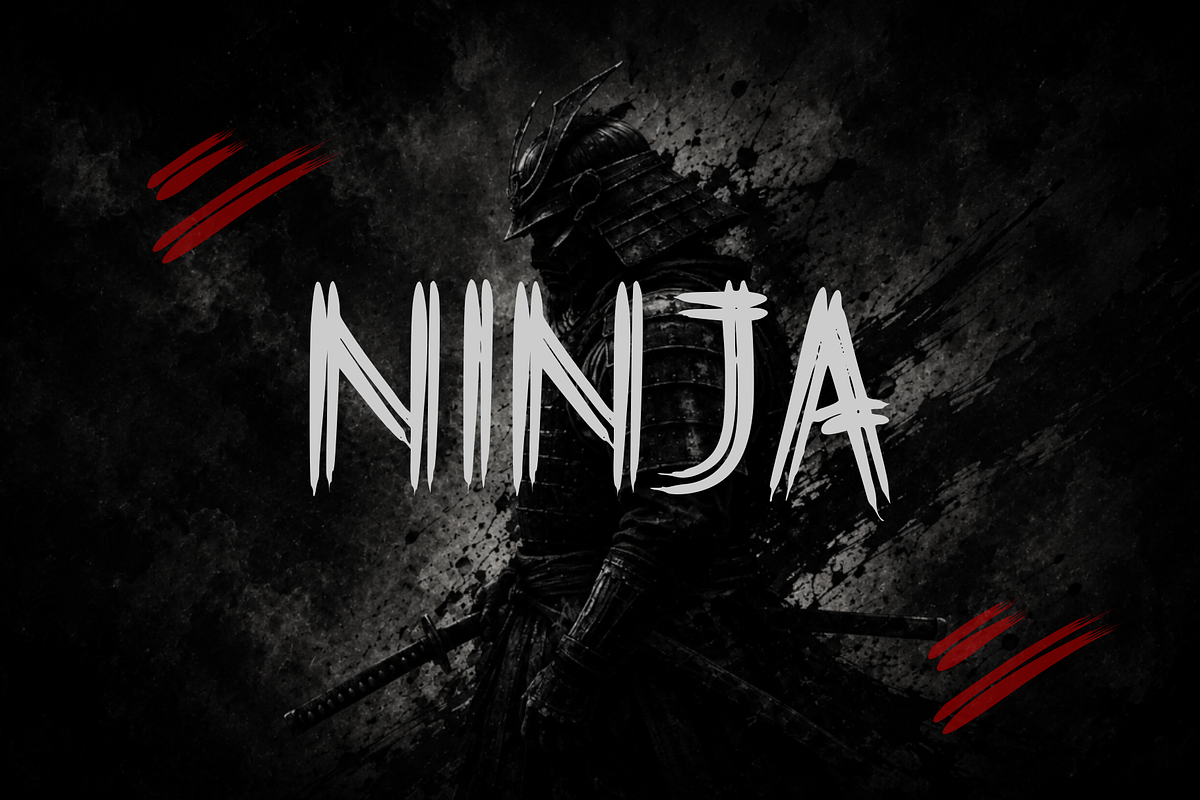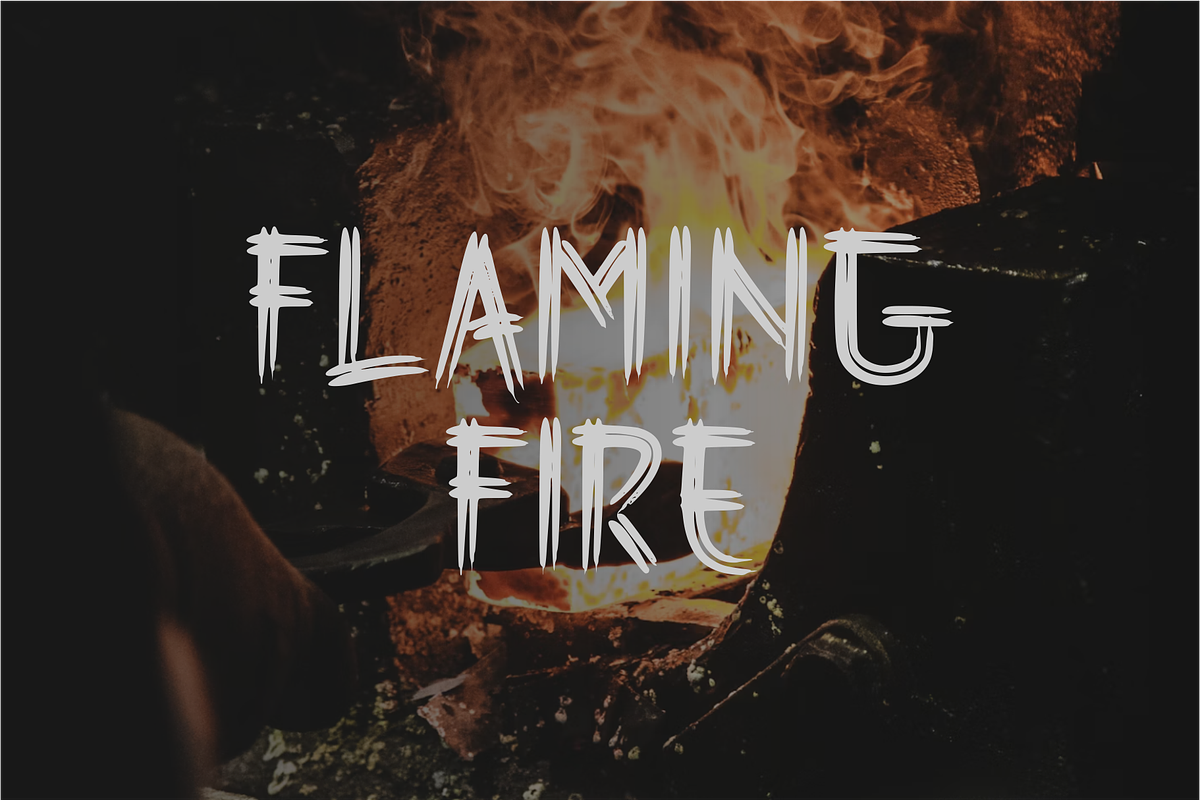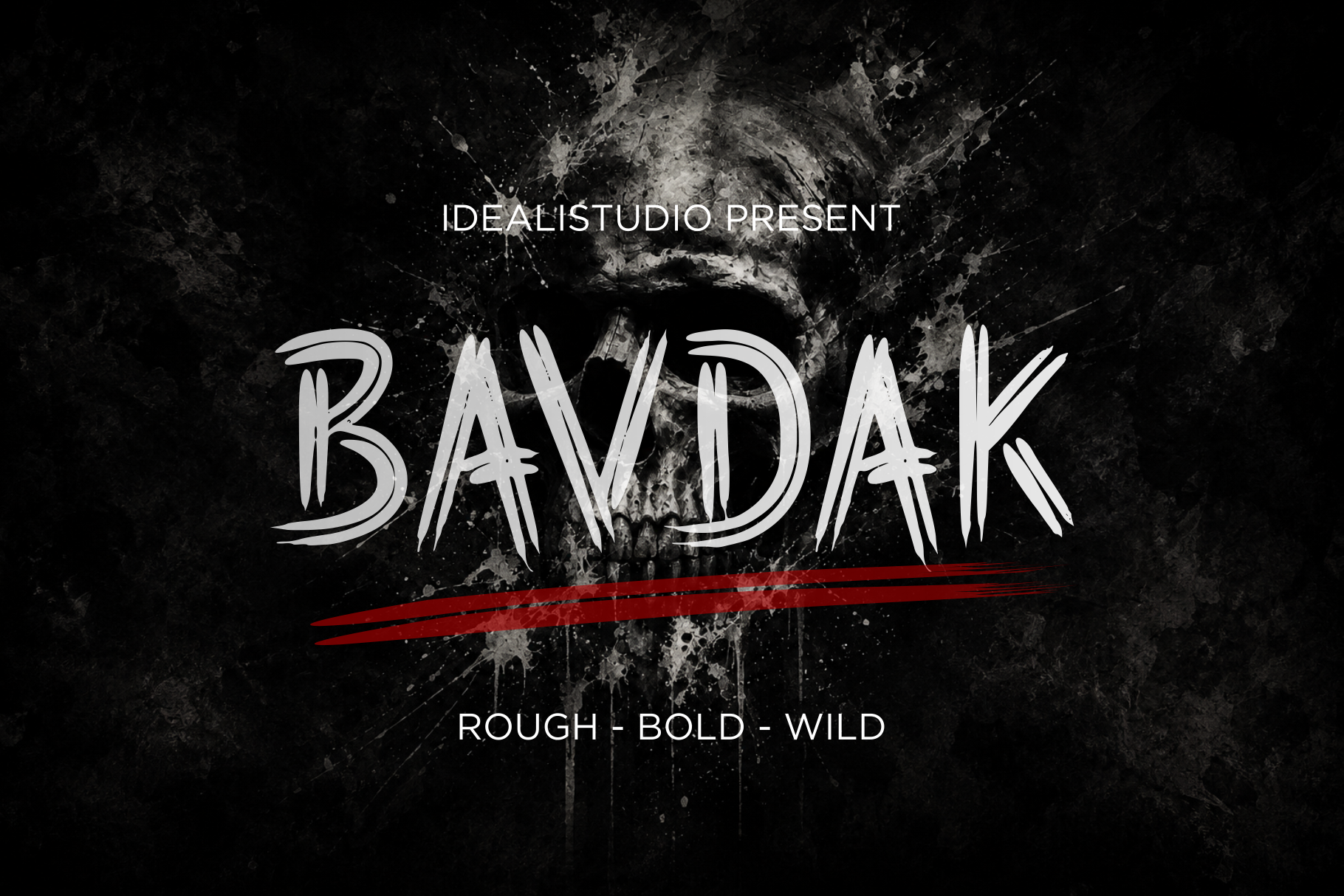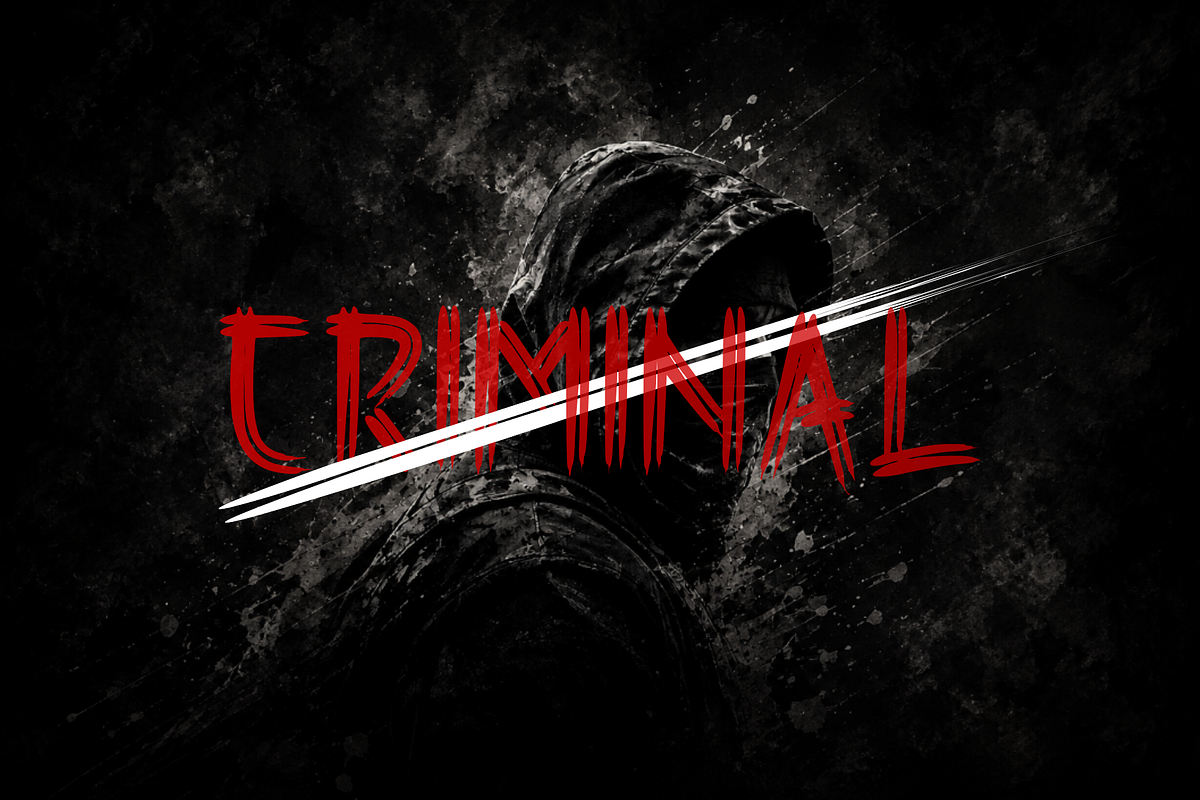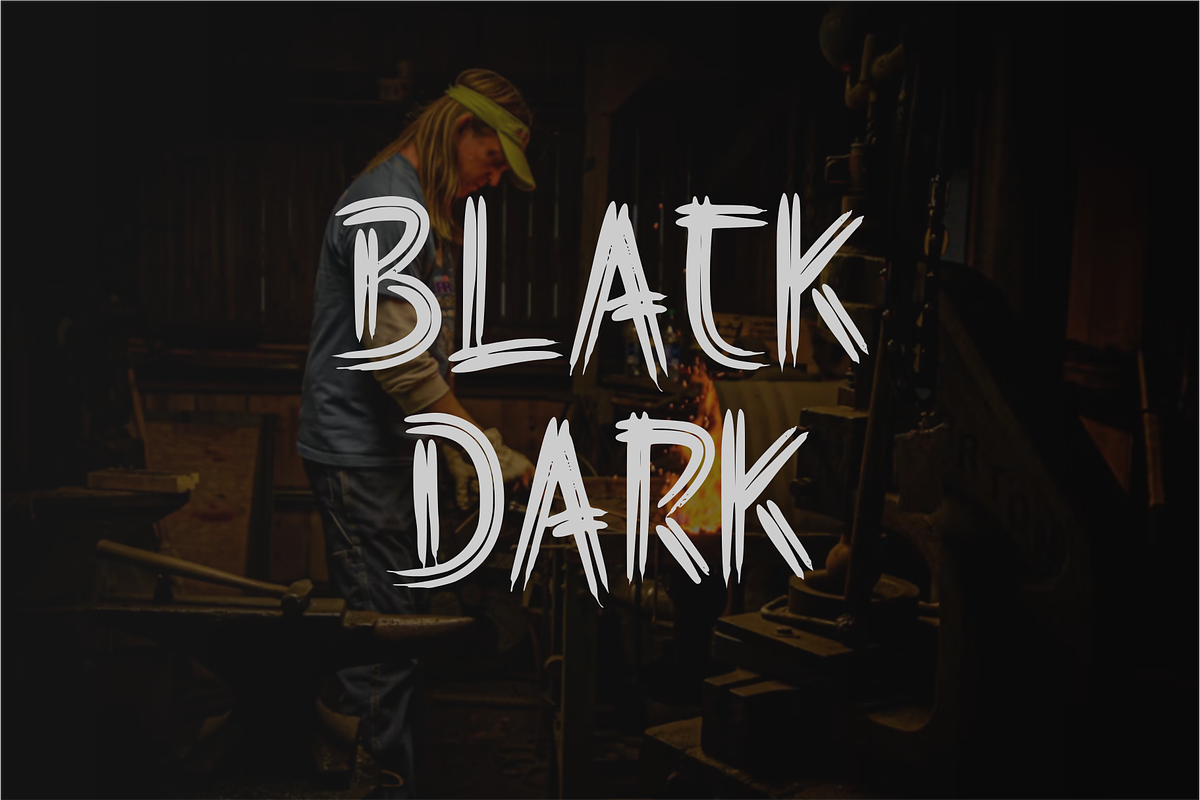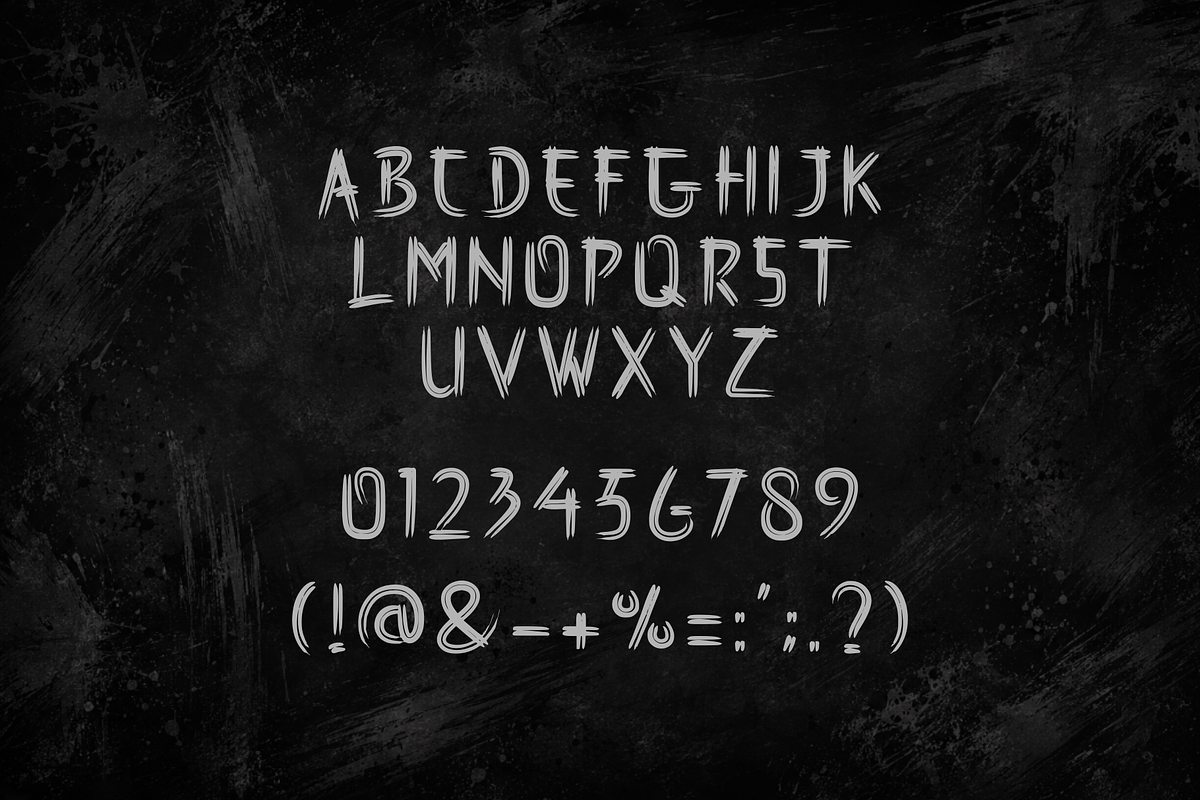
BAVDAK – Brutal Brush Display Font
BAVDAK – Brutal Brush Display Font is a bold, raw, and expressive typeface inspired by aggressive brush lettering and distressed ink strokes. Its rough edges, sharp details, and handcrafted texture create a powerful underground aesthetic with a rebellious and energetic character.
Perfect for posters, album covers, streetwear designs, logos, branding, T-shirts, merchandise, tattoos, headlines, and promotional artwork. BAVDAK is designed to make your typography stand out and bring a strong, wild, and unapologetic visual impact to any creative project.